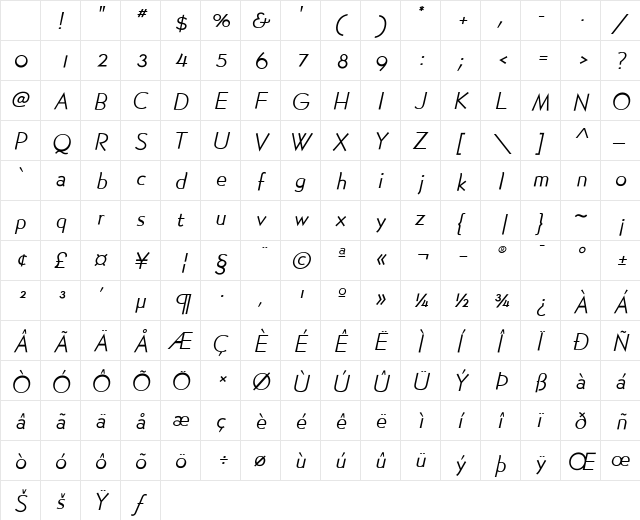
Complete BernhardGothicSG Italic glyph index. Displaying only characters natively supported by BernhardGothicSG Italic font.
BernhardGothicSG takes a clean, functional approach - its unadorned letterforms prioritise legibility and work reliably across screen and print environments. The slanted form adds forward momentum and visual energy.
Font Pairing: Works well alongside a characterful serif or display font that can carry the expressive load while BernhardGothicSG handles the functional copy.
Pro Tip: Use BernhardGothicSG for UI labels, navigation, and short-form body copy where clean legibility is the priority.